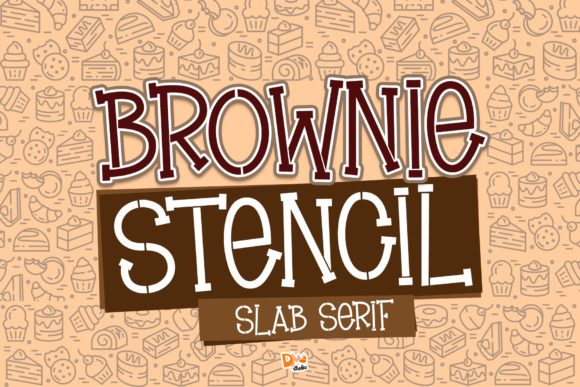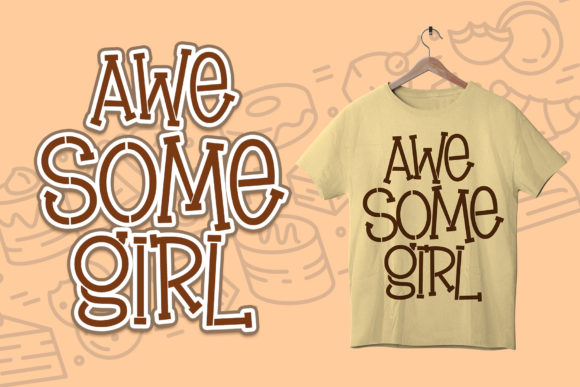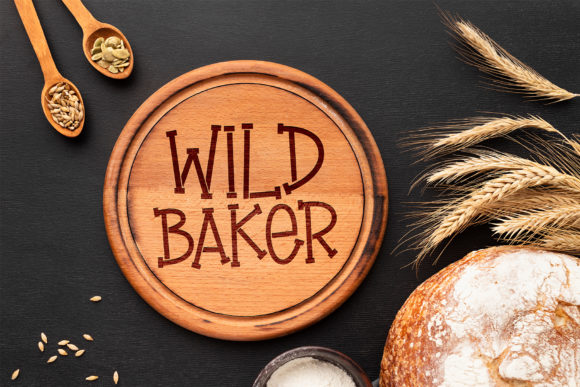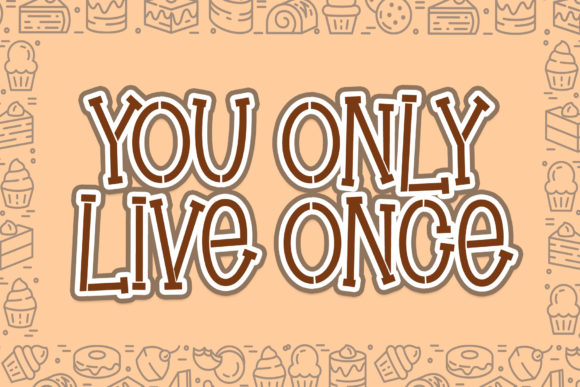
Brownie Stencil Font: A Playful Display Font for Cricut & DIY Projects
About the Brownie Stencil Font
From logos to headlines, the Brownie Stencil Font is the perfect choice for making a lasting impression. Brownie Stencil is a fun, quirky and neat slab serif font. It is ideal for a wide range of children or school projects. Add it confidently to your designs and you will love the results!
Brownie Stencil’s playful, yet neat slab serifs make it perfect for headlines, short bursts of text in posters, and branding applications requiring a touch of youthful energy. Think children’s book covers, playful logos for educational brands, or eye-catching packaging for sweets or toys. It’s less suitable for body text or UI elements due to its limited x-height and slightly quirky character spacing.
Pairing Brownie Stencil with a clean sans-serif like Open Sans for body copy creates a strong visual contrast and balanced readability. For a more whimsical feel, consider pairing it with a playful script font such as Pacifico, but use it sparingly to avoid visual clutter. A geometric sans-serif like Montserrat could also work well, offering a modern counterpoint to Brownie Stencil’s vintage charm.
The font projects a friendly, approachable personality with a hint of retro charm. It’s versatile enough for various applications but shines best when used to convey a sense of fun and approachability.